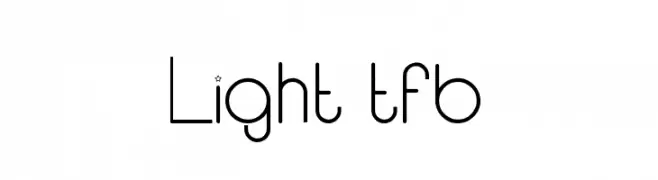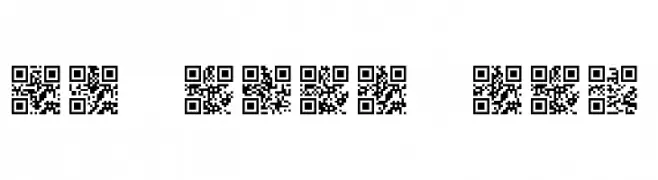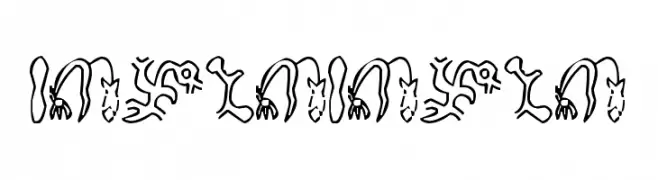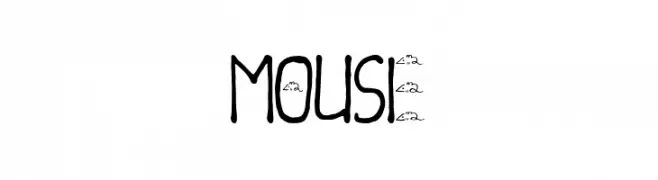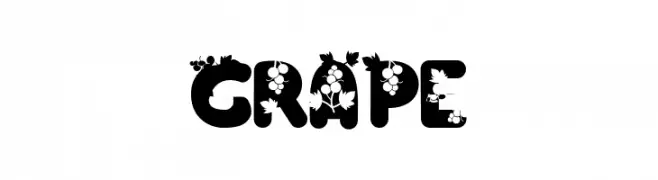
A modern, geometric font with clean lines and a minimalistic style.
A modern, geometric font with a digital, tech-inspired aesthetic.
A bold, barbed wire-inspired font with intricate, angular lines.
A display font mimicking QR codes for each character.
A dynamic and flowing script font with elegant curves and a slight slant.
A decorative font with hand-drawn Christmas-themed illustrations.
A pictographic, decorative font with ancient glyph-like forms.
A whimsical, unicorn-themed decorative font with stars and hearts.
A playful, hand-drawn font with mouse illustrations integrated into the characters.
A playful, grapevine-themed decorative font with bold, rounded characters.